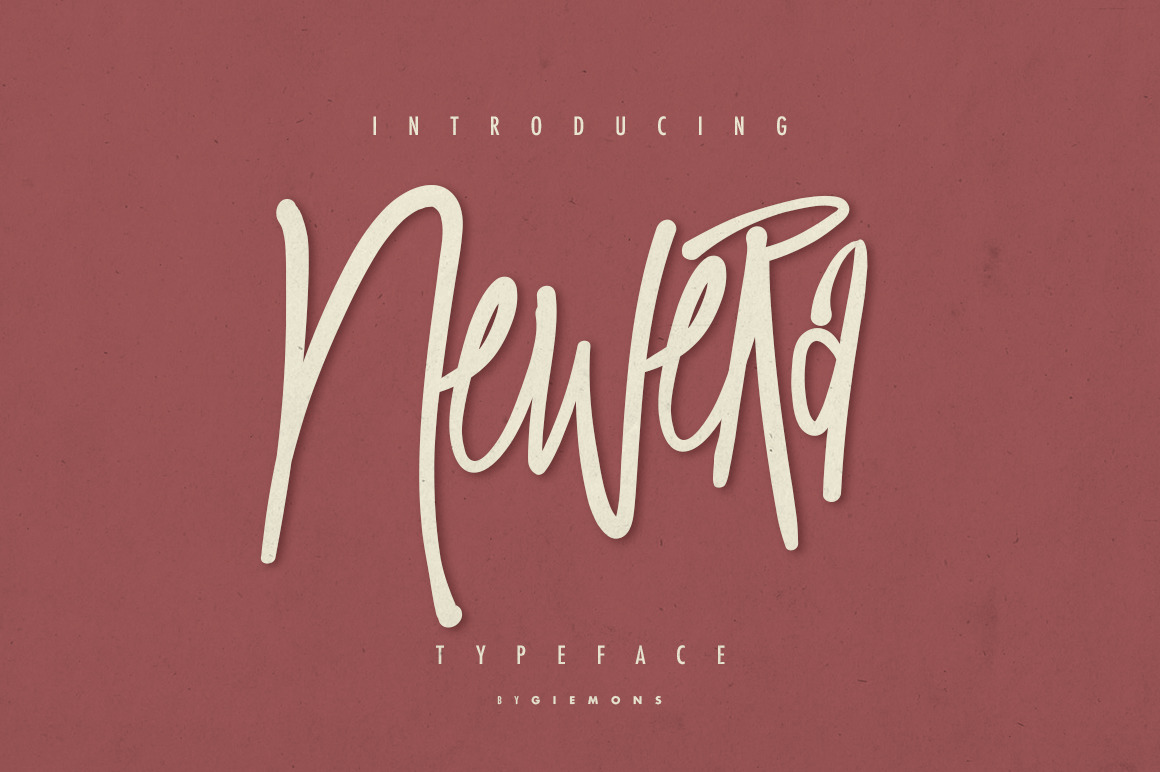
Newera Typeface
About the Product a Newera Typeface is unique Script font. Can make it easier to convey the message in your design. Use for awesome display, wedding, birthday, labeling, clothing, movie sceen, poster, movie title, gigs, album covers, logos, and much more.